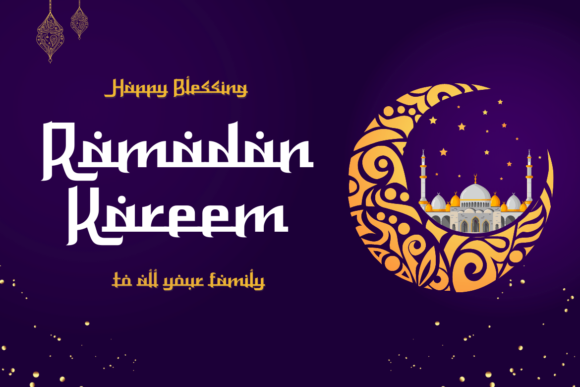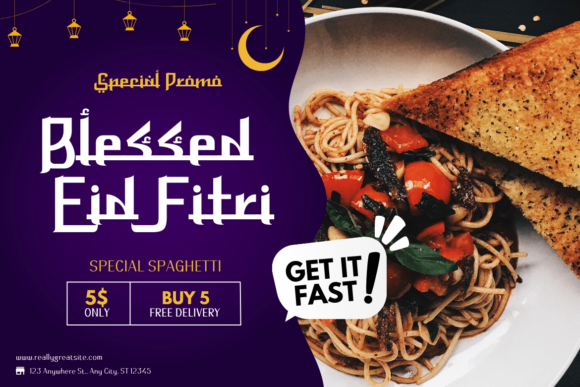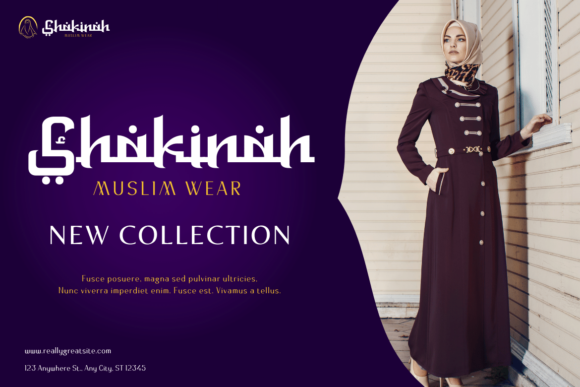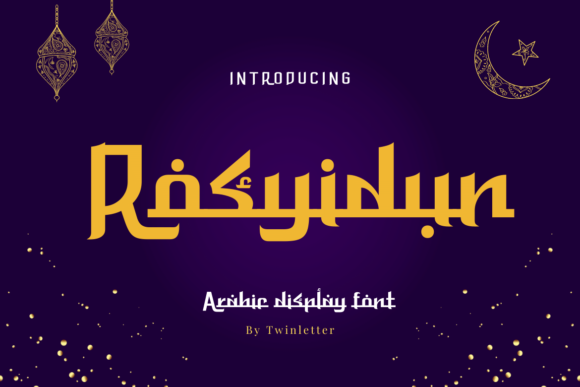
Introduction to Rosyidun Font
Rosyidun is an authentic and geometric Arabic display font.
Its capital letters and forms are rotated, creating a visually stunning display for captions, posters, or headlines You’ll fall in love with the beautiful and ornate patterns of the Arabic Display font.
Key Features of Rosyidun Font